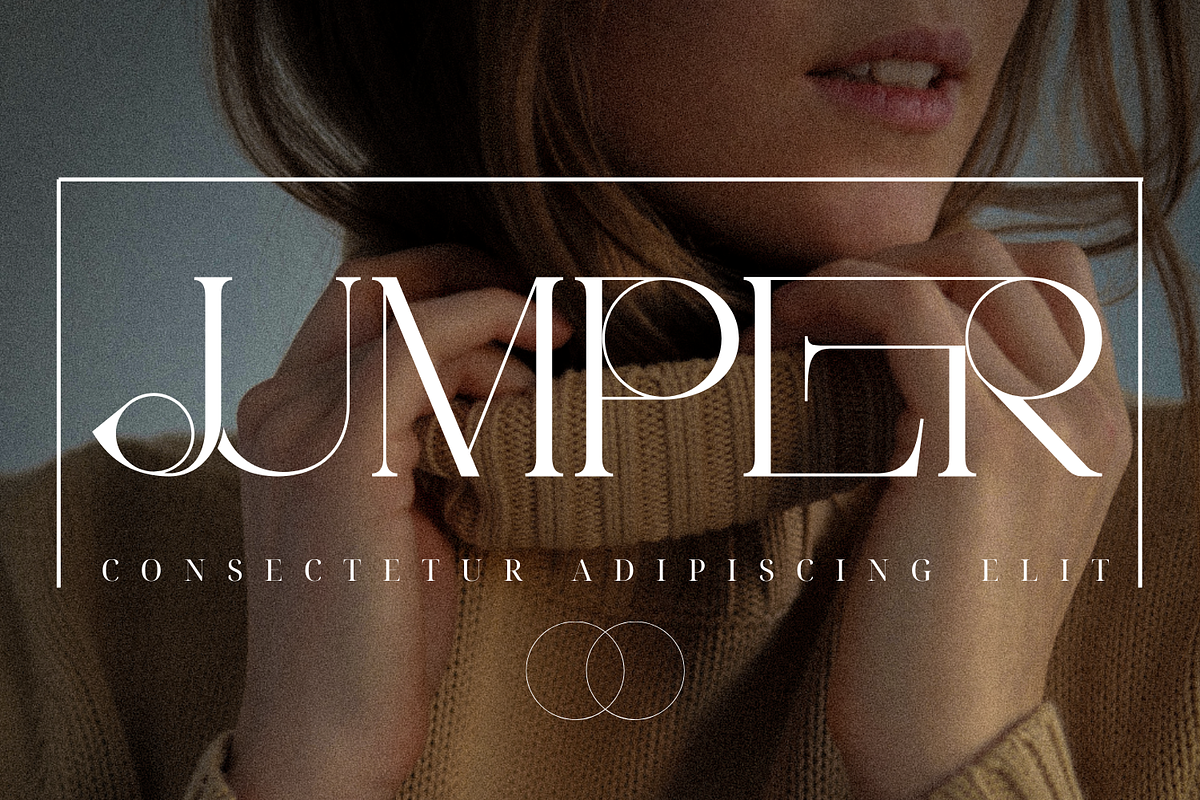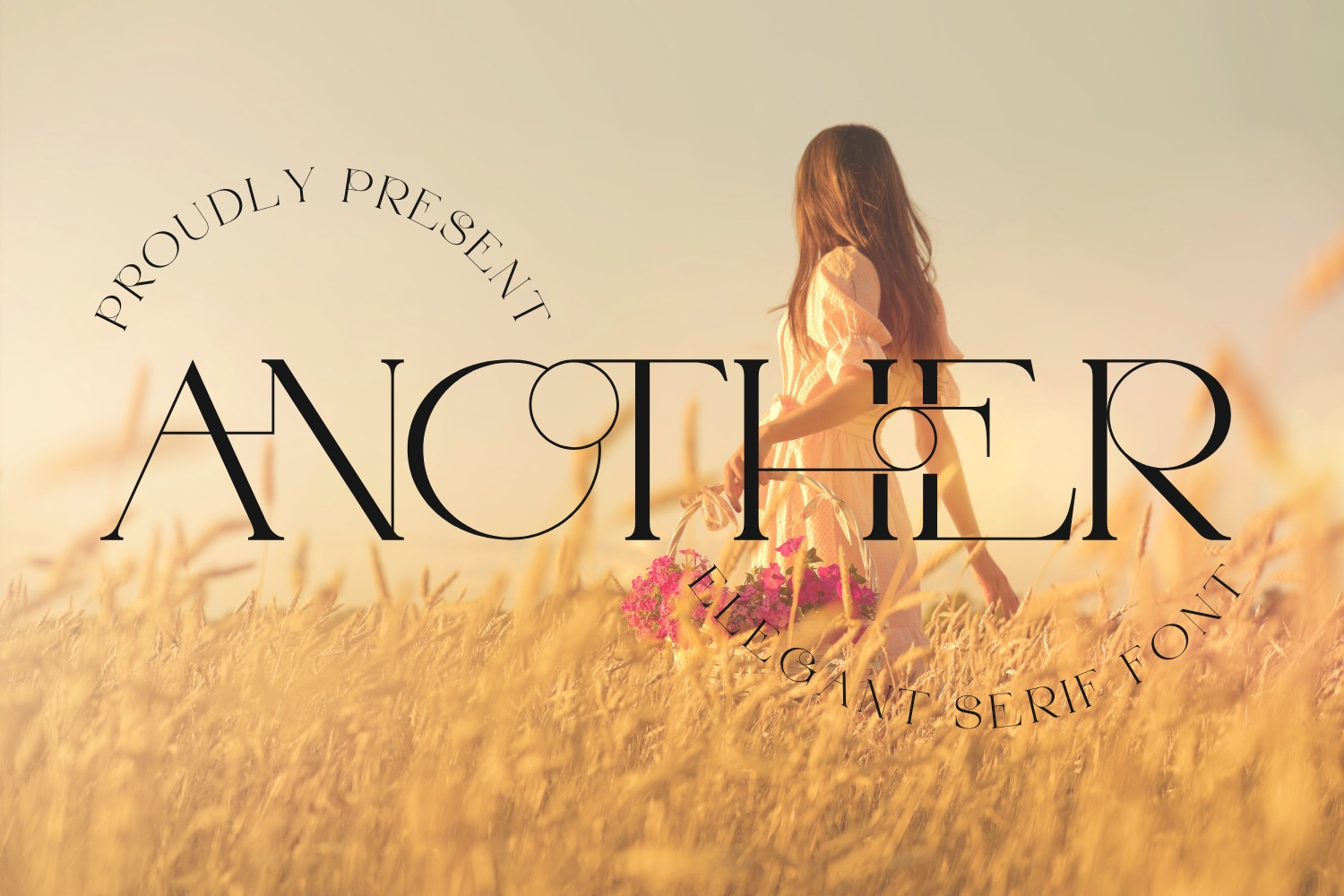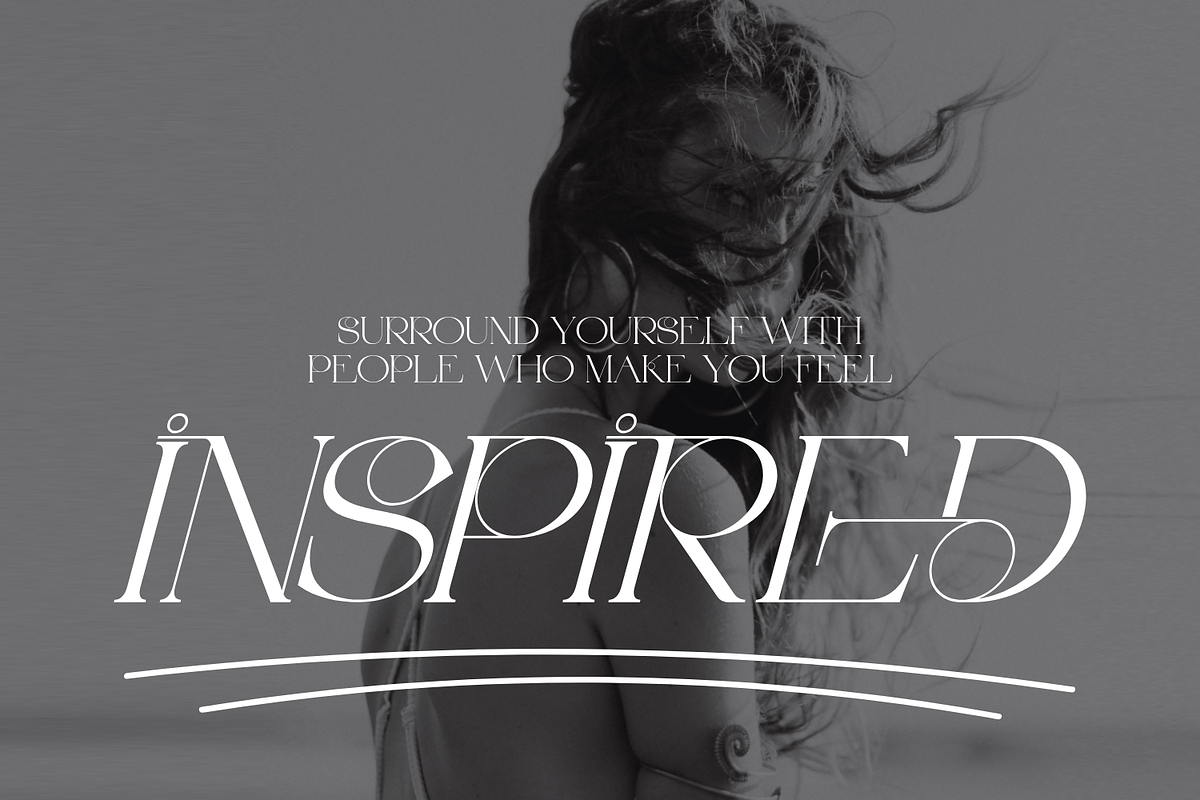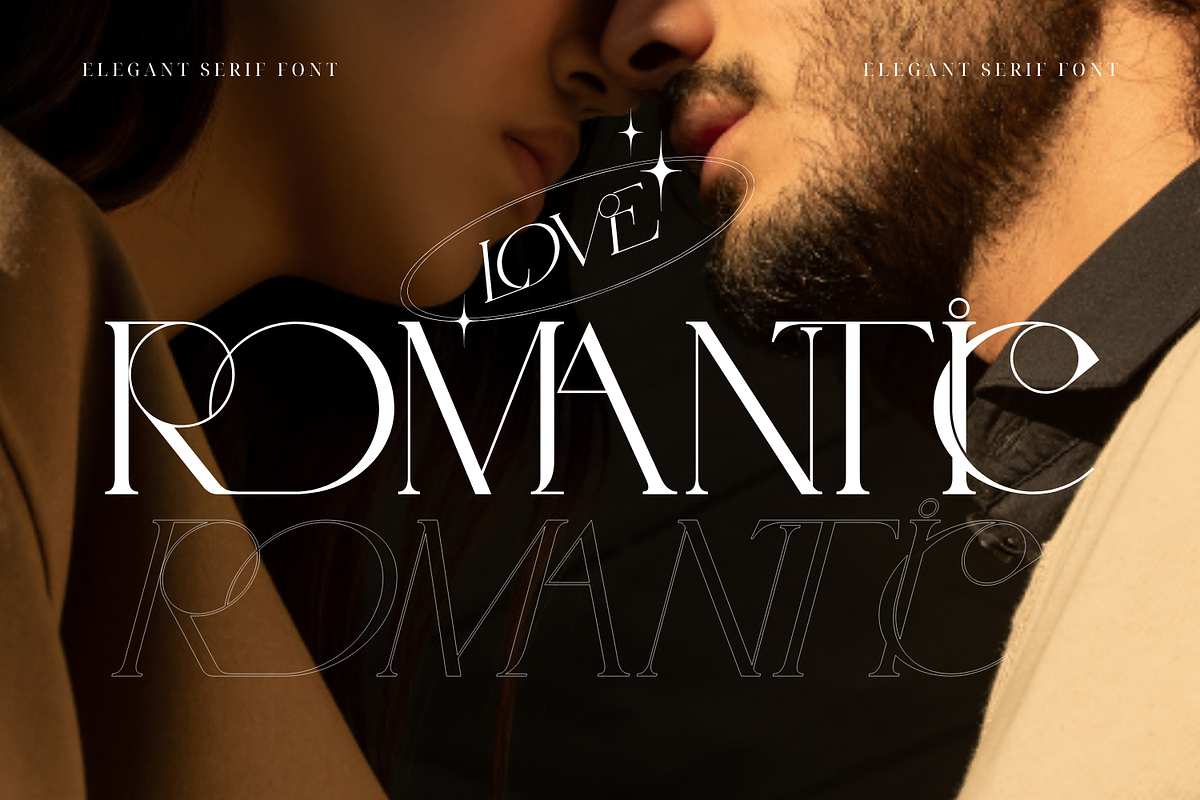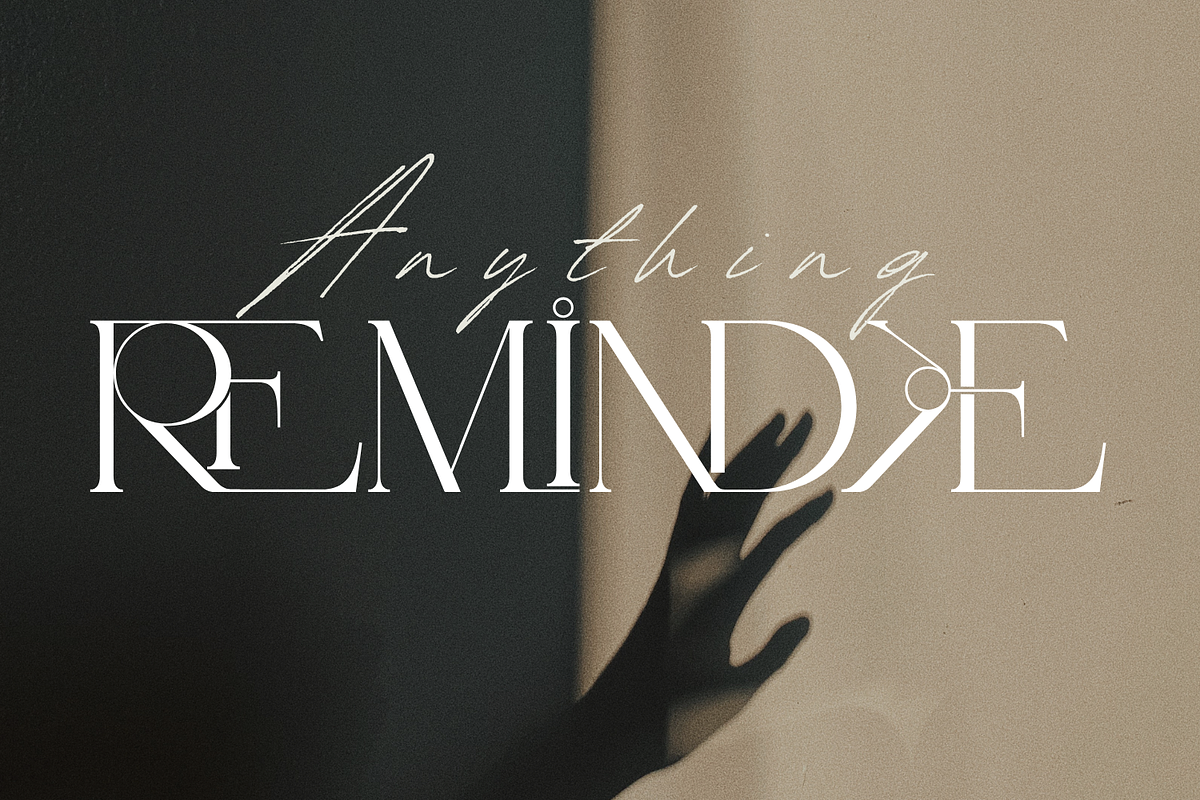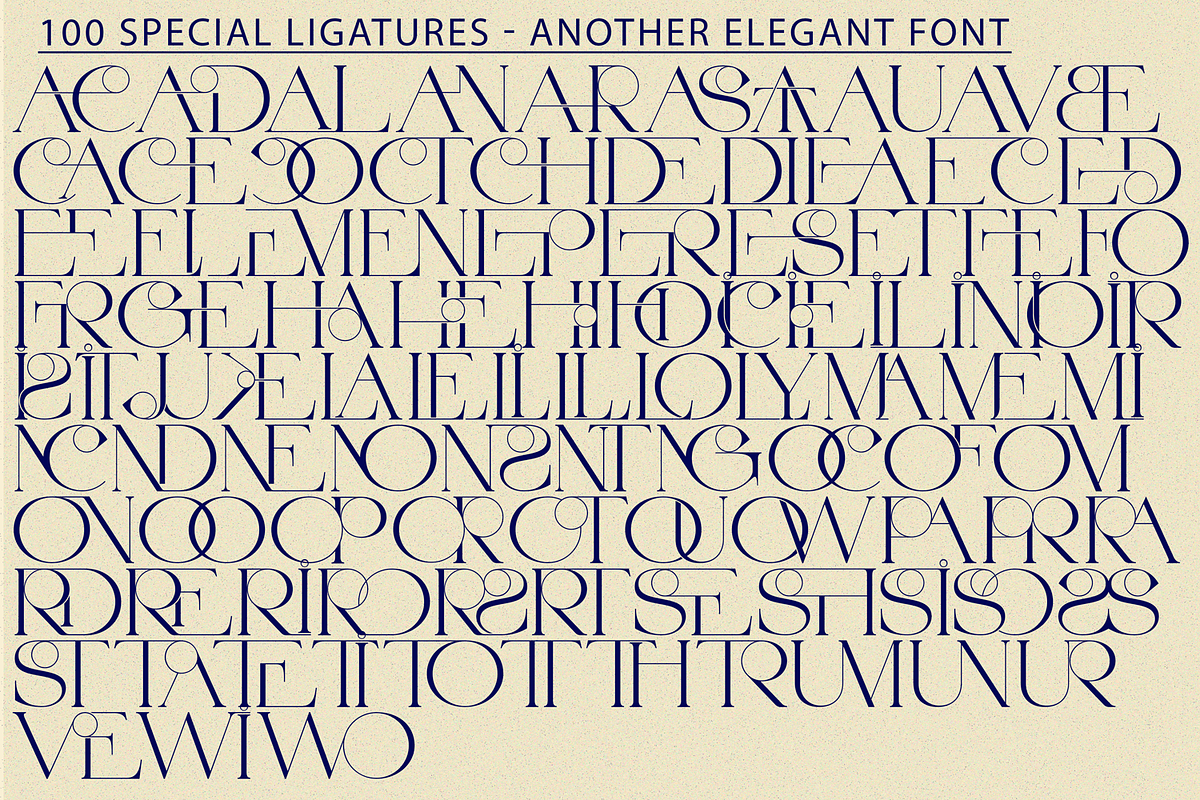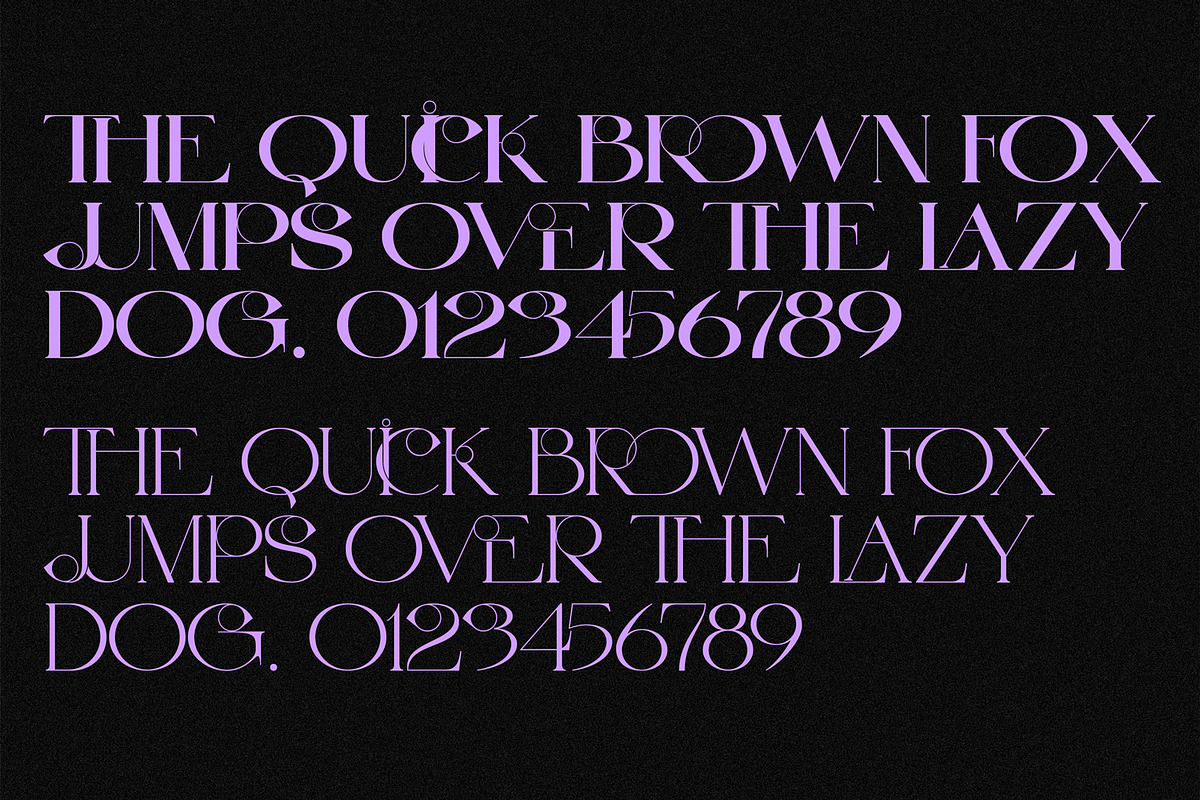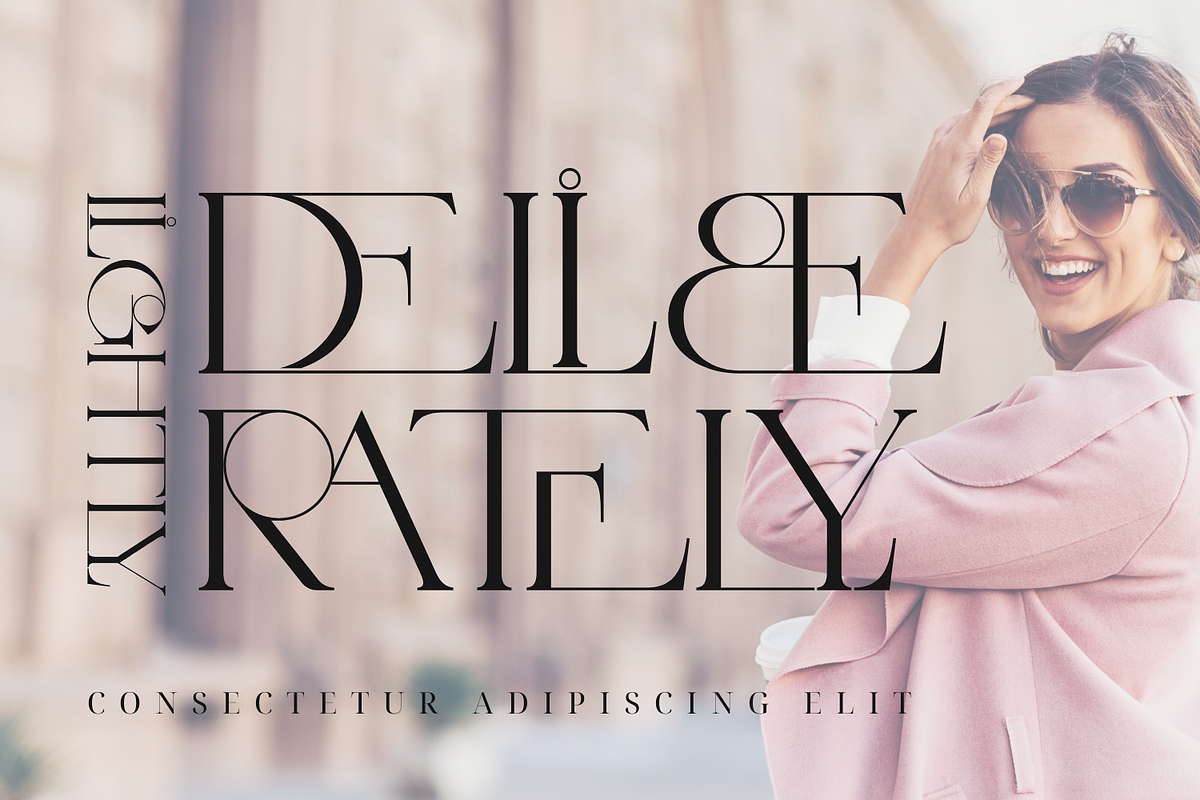
Another Elegant Font
Another Elegant Font is a modern and elegant chic serif font with a classic style inspired by 18th-century typography. This is a very elegant and classy font for all branding and logo designs This type of serif font is created with elegance and luxury so it is perfect for all your design needs. This font is equipped with many beautiful and unique ligature options. Perfect for sophisticated branding, editorial design, web typography, and more.
Another Elegant was built with OpenType features and includes 100 ligatures, alternate, numbers, punctuation, and it also supports other languages.
AC AD AL AN AR AS AT AU AV BE CA CE CH CO CT DE DI EA EC ED EE EL EM EN EP ER ES ET FE FO FR GE HA HE HI HO IE IC IL IN IO IR IS IT JU KE LA LE LI LL LO LY MA ME MI NC ND NE NG NO NT NS OC OF OM ON OO OP OR OT OU OW PA PR RA RD RE RI RO RS RT SE SH SI SO SS ST TA TE TH TI TO TR TT UM UN UR VE WI WO
This font also included full set of:
- Uppercase letters
- Special Ligatures